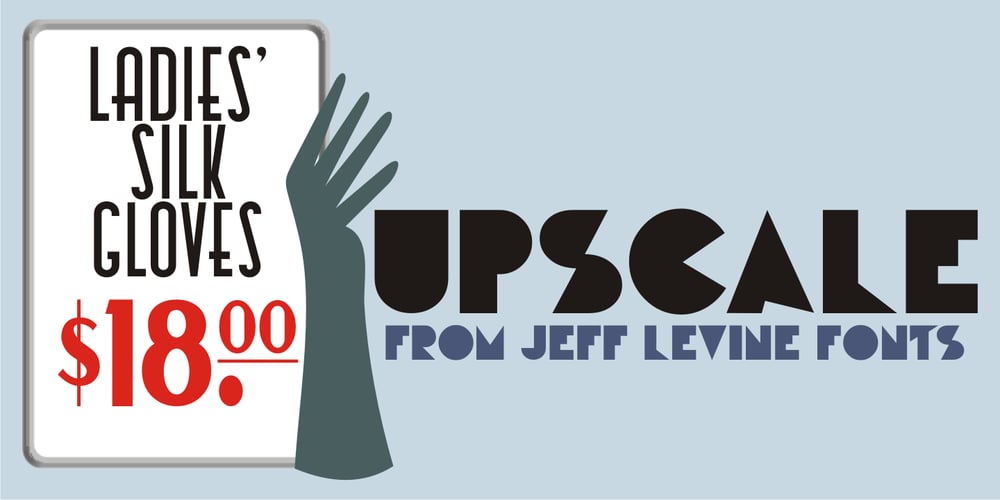
Upscale JNL
Upscale JNL font
Upscale JNL Font Family was designed by Jeff Levine and published by Jeff Levine. Upscale JNL contains 1 styles and family package options. A page from an “ideas booklet” that was copyrighted in 1939 by the Sanford Ink Company displayed a hand lettered variation on the counter-less [or solid] alphabet that so typified the Art Deco style of the times. Bold, brash and beautiful, Upscale JNL evokes high-end department stores, fine millinery shops, cafeterias, night clubs and other business establishments from the Streamline era. This type of lettering style was a workhorse, and could (and still can) tackle any message with strength, clean lines and class.